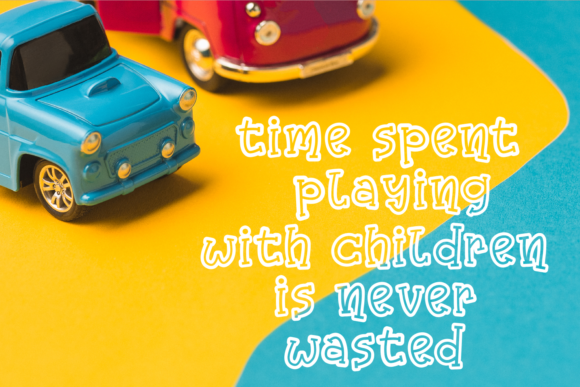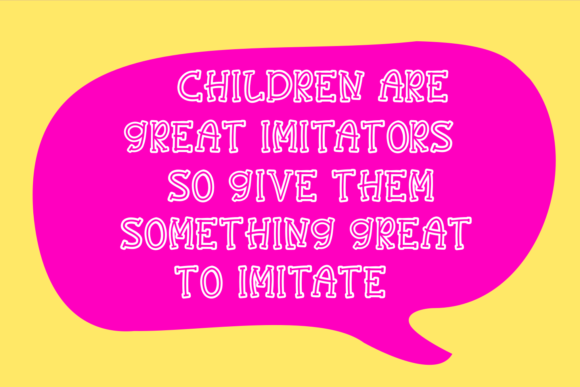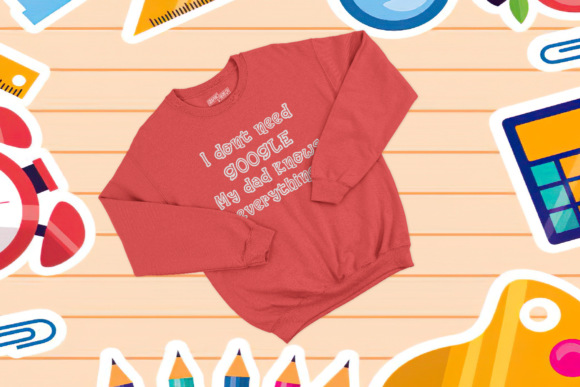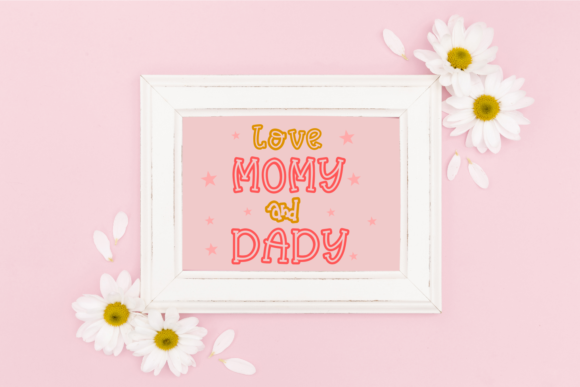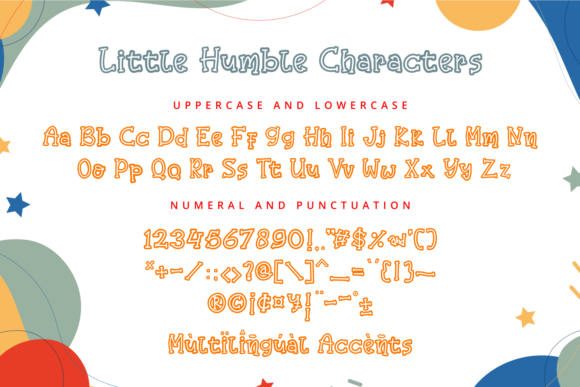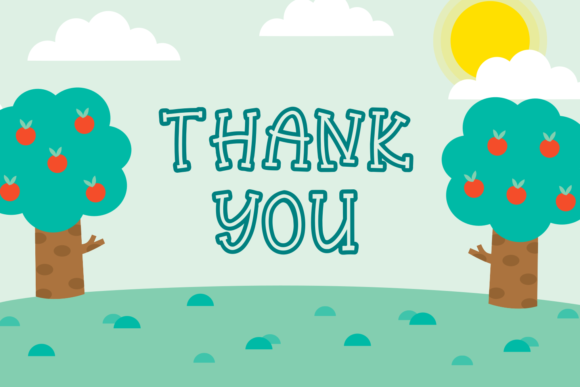
Introduction to Little Humble Font
Have you ever stared at a blank page, trying to spark creativity, only to find yourself drawn to a simple, yet elegant font that sparks an idea? That’s exactly what happened to me when I stumbled upon the Little Humble Font – a delightful display font that’s perfect for adding a touch of whimsy to your designs.
As designers, we’re always on the lookout for high-quality design resources that can elevate our creative projects. The Little Humble Font is a treasure trove of inspiration, offering a unique and quirky aesthetic that’s sure to captivate your audience. With its transparent background and free download option, this font is a valuable addition to any design arsenal.
In this article, we’ll delve into the world of the Little Humble Font, exploring its characteristics, uses, and why it’s a must-have for designers seeking to add a personal touch to their work.
Key Features of Little Humble Font
- High-quality, free download font ideal for various design projects
- Comes with a transparent background, allowing for seamless integration with any design
- Designed to be a versatile design resource for creative projects, from print to digital media
- Features a clean and elegant design aesthetic, making it suitable for a wide range of applications
Honest Review: Little Humble Font
I recently came across the Little Humble Font, and I must say it’s a lovely addition to my design resource collection. One of the things that caught my eye was the high quality of the font, with crisp and clean lines that make it perfect for a creative project.
- High-quality design with a clear, readable font style
- Perfect for a variety of creative projects, from logos to digital art
- Comes with a transparent background, making it easy to use with any design
- The font is a bit limited in terms of style options, with only a few weights and styles to choose from
- Not suitable for complex text-based projects, as it may not be as readable at smaller font sizes
Overall, I’m quite impressed with the Little Humble Font. While it may not be perfect for every project, it’s a great addition to any designer’s toolkit. Its high quality, free availability, and versatility make it a must-try for anyone looking for a reliable design resource.
For optimal results, use the Little Humble Font in conjunction with other design elements that complement its unique design. Experiment with different font sizes, colors, and arrangements to create visually appealing designs.
The Little Humble Font is suitable for a wide range of creative projects, including:
1. Branding and marketing materials.
2. Social media graphics and posts.
3. Print and digital publications.
4. Infographics and data visualizations.